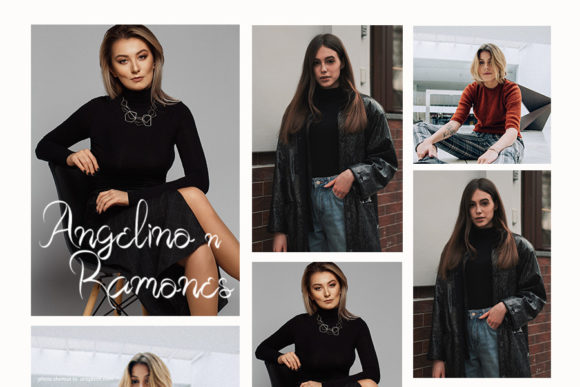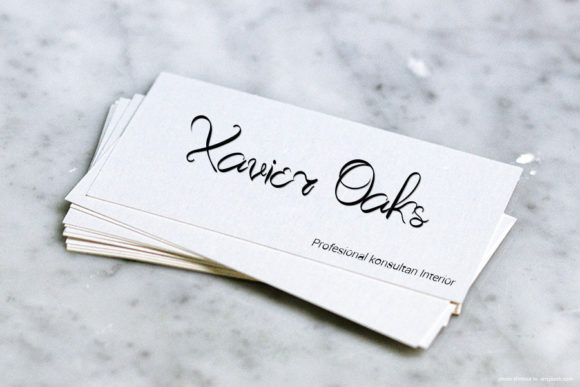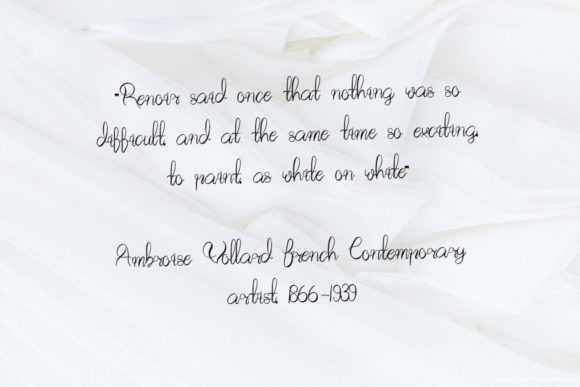
Introduction to Lunar Wave Font
Have you ever been working on a creative project, and then suddenly, the perfect font comes along and brings your design to life? That’s exactly what happened to me when I stumbled upon the Lunar Wave Font. As a designer, I’m always on the lookout for high-quality fonts that can elevate my designs and make them stand out.
With its refined and timeless handwritten style, the Lunar Wave Font is a game-changer for any creative project. Its unique and beautiful touch adds a personal and emotional depth to your designs, making them truly unforgettable. Whether you’re creating a logo, branding, or quote, the Lunar Wave Font is the perfect design resource to bring your vision to life.
Key Features of Lunar Wave Font
- High-quality design resource ideal for creative projects, offering a unique and modern aesthetic.
- This font features a transparent background, making it easy to use on any design surface.
- With a resolution of 300 DPI, the Lunar Wave Font is suitable for print and digital applications.
- Unique characteristics of the Lunar Wave Font include its flowing, wavy lines and subtle texture, adding depth and visual interest to any design.
- This design resource is perfect for designers and artists looking for a high-quality, versatile font to enhance their creative projects.
Honest Review: Lunar Wave Font
I recently had the chance to work with the Lunar Wave Font, and I must say, it’s a fantastic addition to any design project. The high quality and elegant feel of the font make it perfect for creating a sophisticated and modern look.
One of the standout features of the Lunar Wave Font is its transparent background, which makes it incredibly versatile. It can be used in a variety of creative projects, from logo designs to digital signage, without worrying about background interference.
- ✨ High quality and elegant feel
- ⚠️ Limited font styles and variations available
- ⚠️ Not suitable for use in extremely small font sizes
Overall, I’m very impressed with the Lunar Wave Font. It’s a fantastic design resource that can elevate any project with its high quality and elegant feel. While it may have some limitations, it’s a great choice for designers looking for a versatile and stylish font.
Tips for Getting the Most Out of Lunar Wave Font
To get the most out of the Lunar Wave Font, be sure to use it in conjunction with other high-quality design resources. Experiment with different font sizes and styles to create a unique look that complements your design.